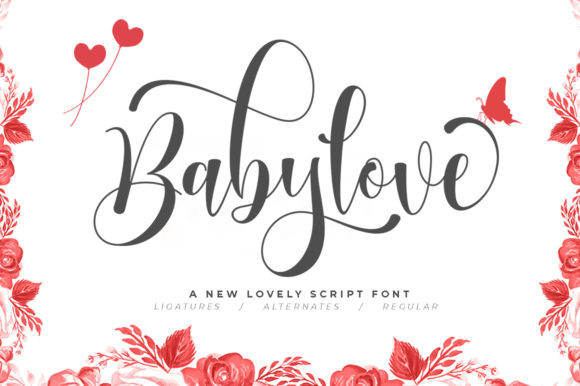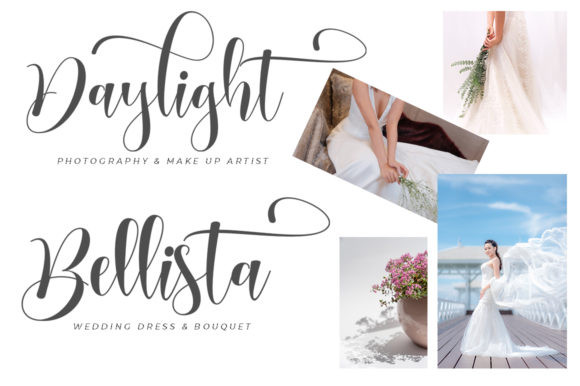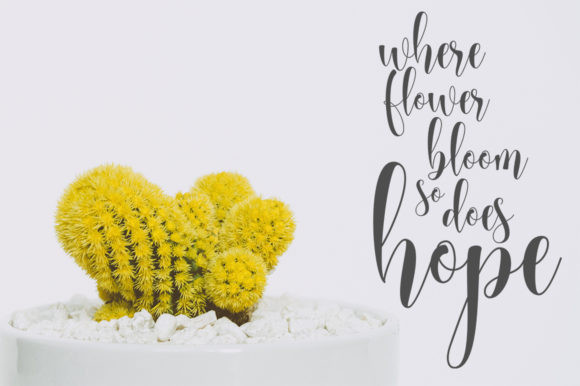
Babylove Font
Babylove is cute and whimsical, but also casual. This versatile display font has a wide range of applications ranging from greeting cards to stunning calligraphy art and is guaranteed to add a personal touch to your next design.